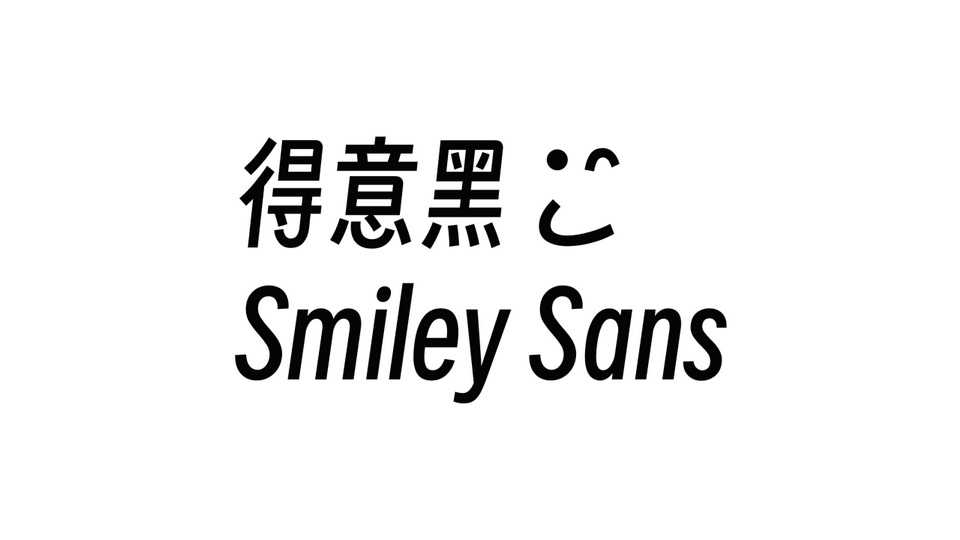
Download Smiley Sans font, a condensed and oblique Chinese typeface seeking a visual balance between the humanist and the geometric. The overall character of Smiley Sans is narrow and oblique, and the details incorporate the special shape of hand-painted art characters.
Designer: atelierAnchor